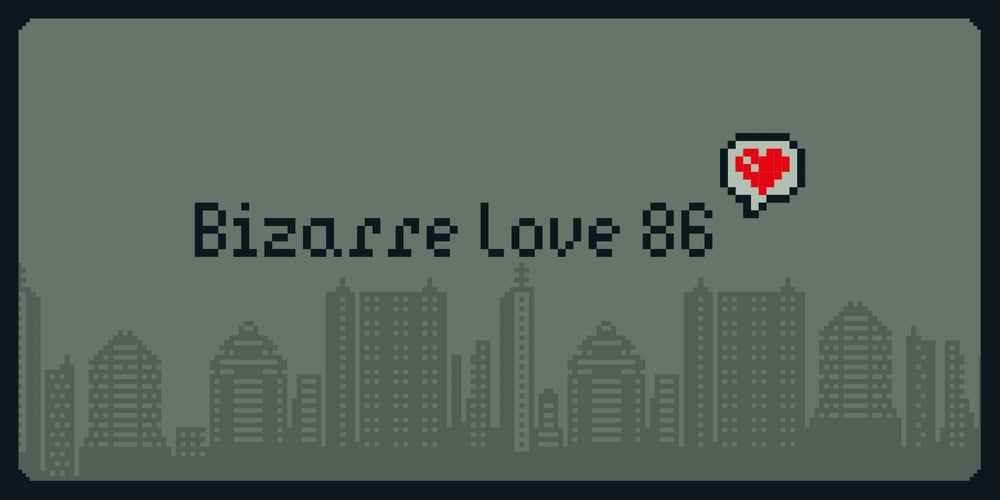
Bizarre Love 86 Font Family was designed by Alfred Trujillo and published by Nomaszebras. Bizarre Love 86 contains 1 styles and family package options. Bizarre Love 86 is a pixelated-style font that evokes the retro aesthetics of 1980s video games. Inspired by the 8-bit graphics of consoles and computers from that era, this font captures the nostalgic essence of the arcade era and early computer games.Each letter of Bizarre Love 86 is formed by square pixels reminiscent of the pixelated graphics of classic video game screens. With sharp lines and defined contours, this font exudes a retro charm that will delight fans of 80s pop culture.Bizarre Love 86 is ideal for designing logos, posters, t-shirts, and other projects that seek to capture the retro atmosphere of the 80s. With its unique style and nostalgic charm, this font will add a touch of fun and originality to any design.